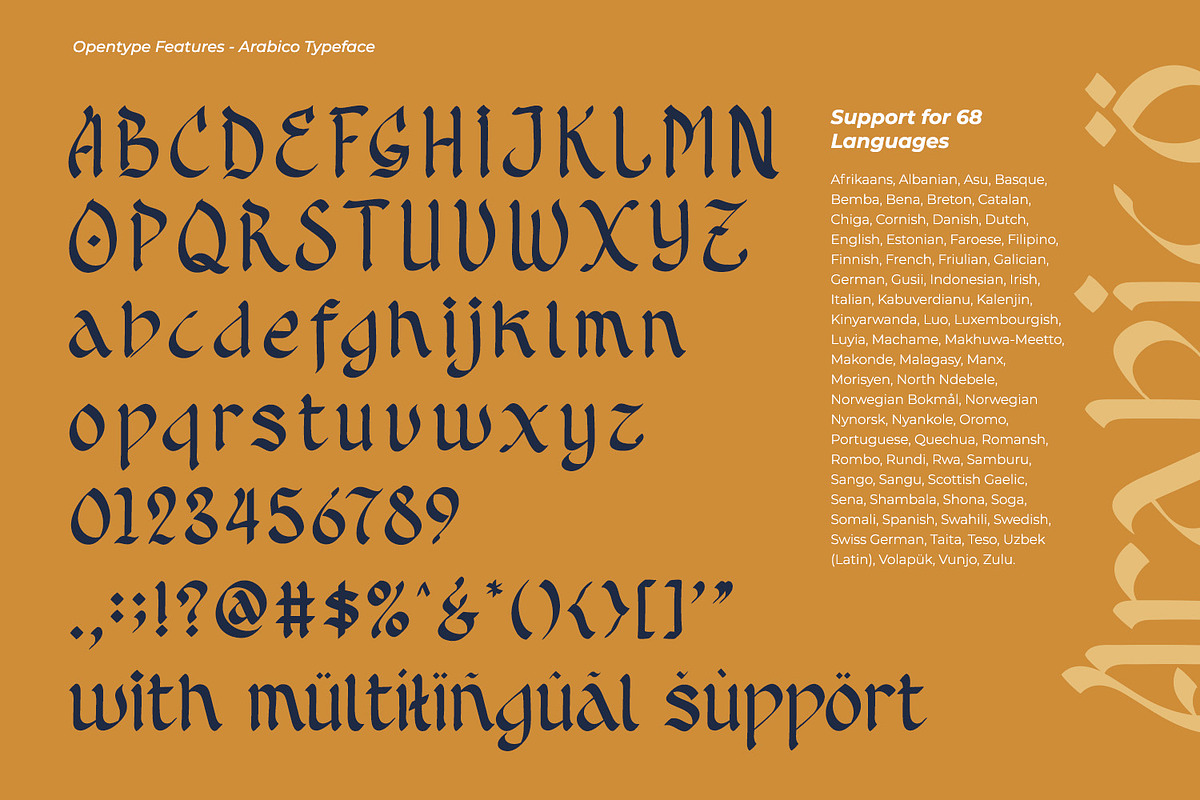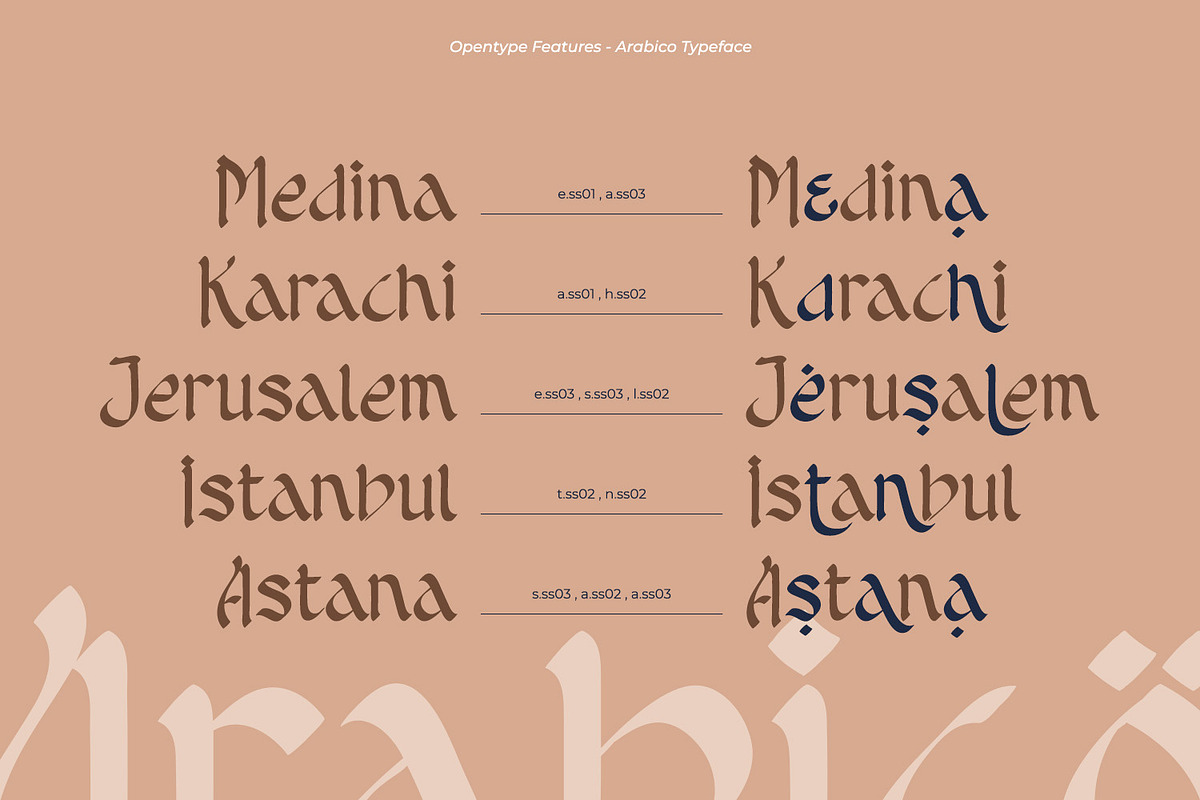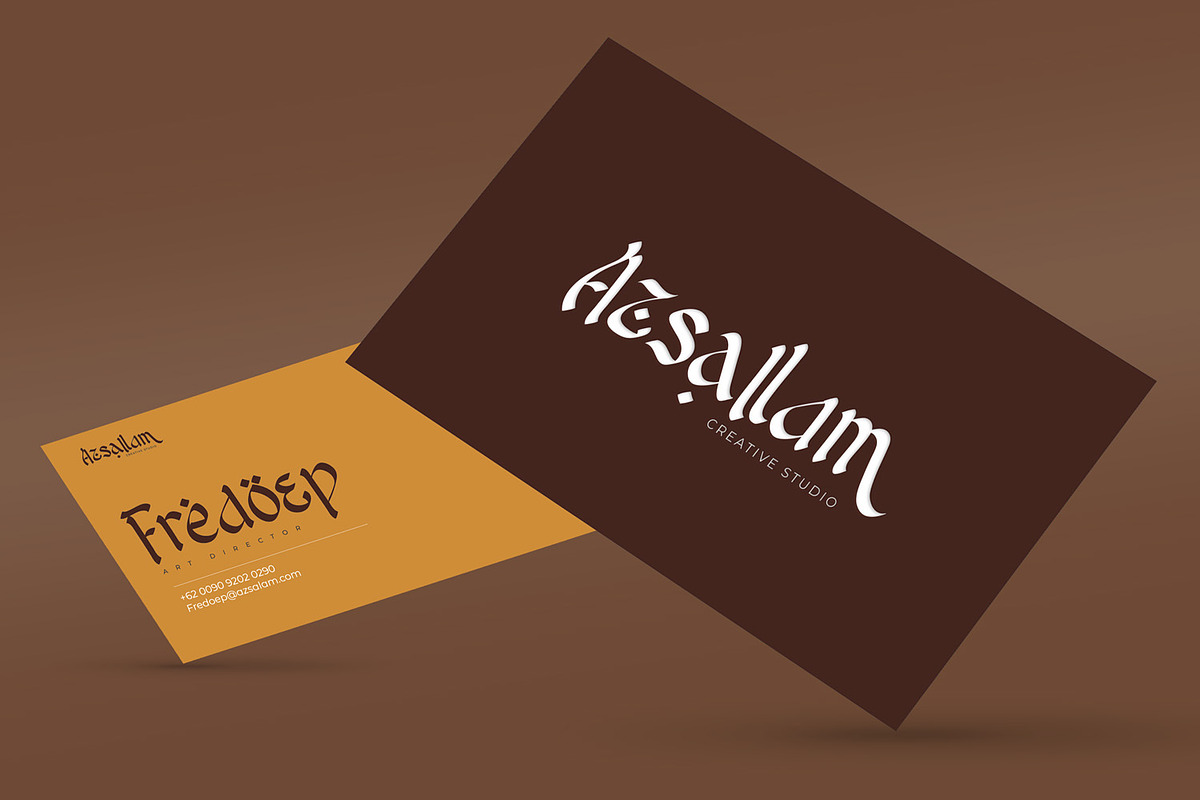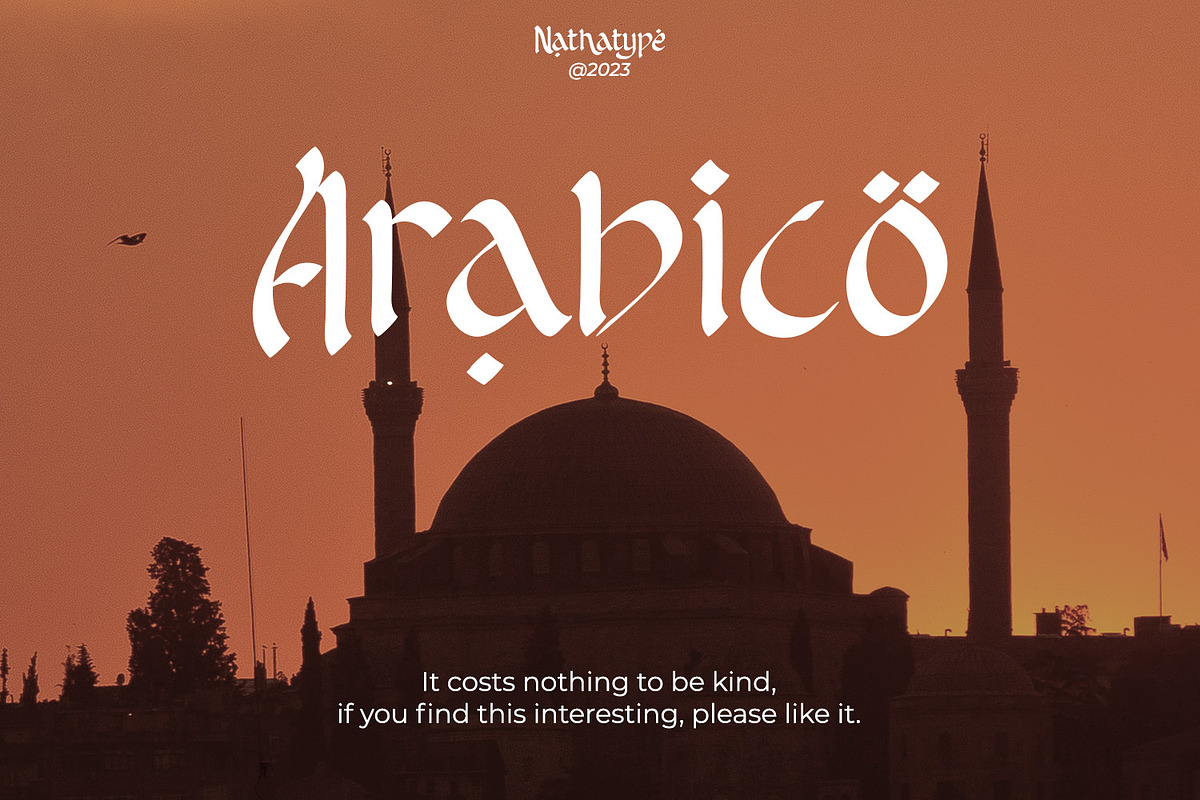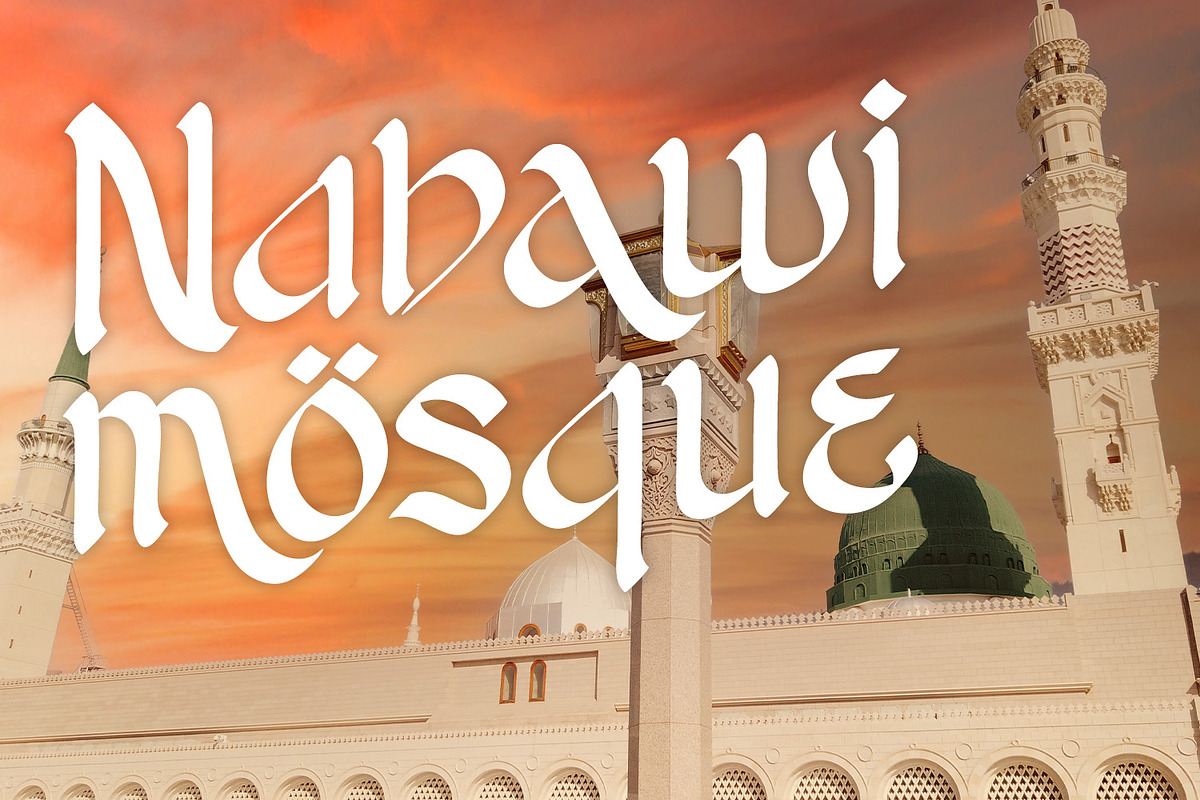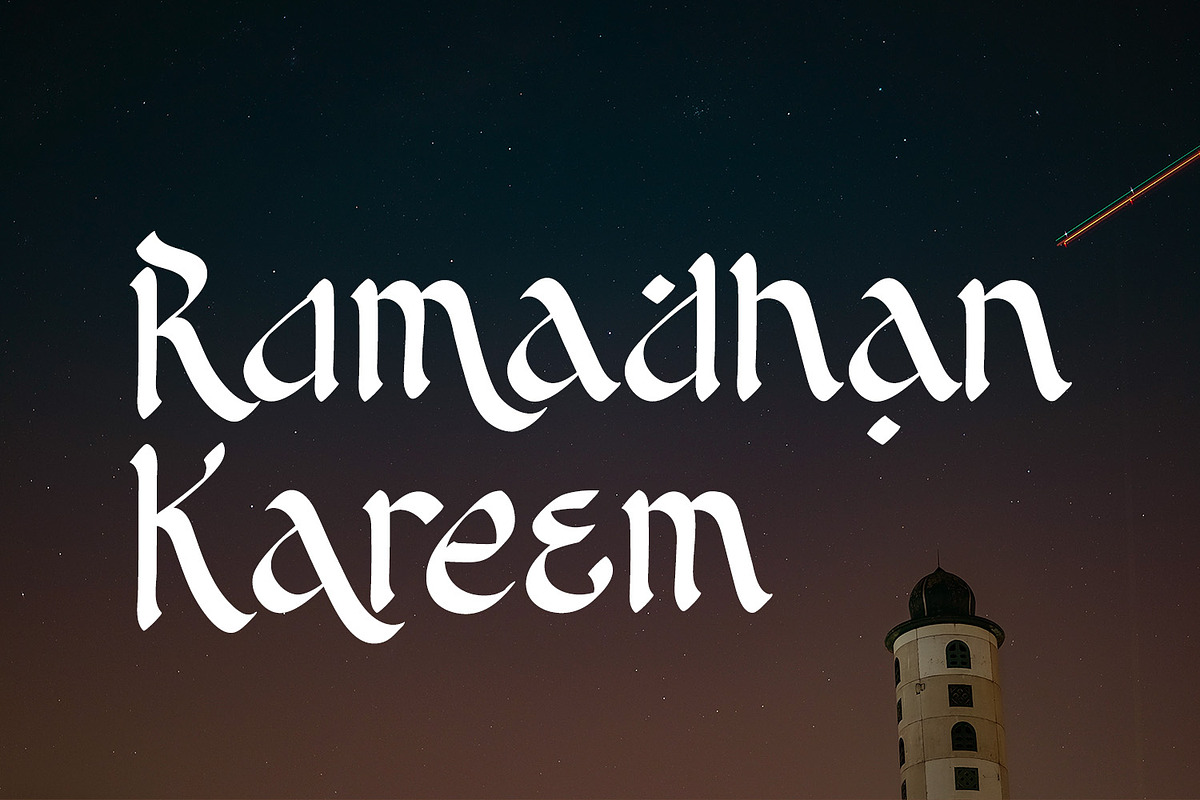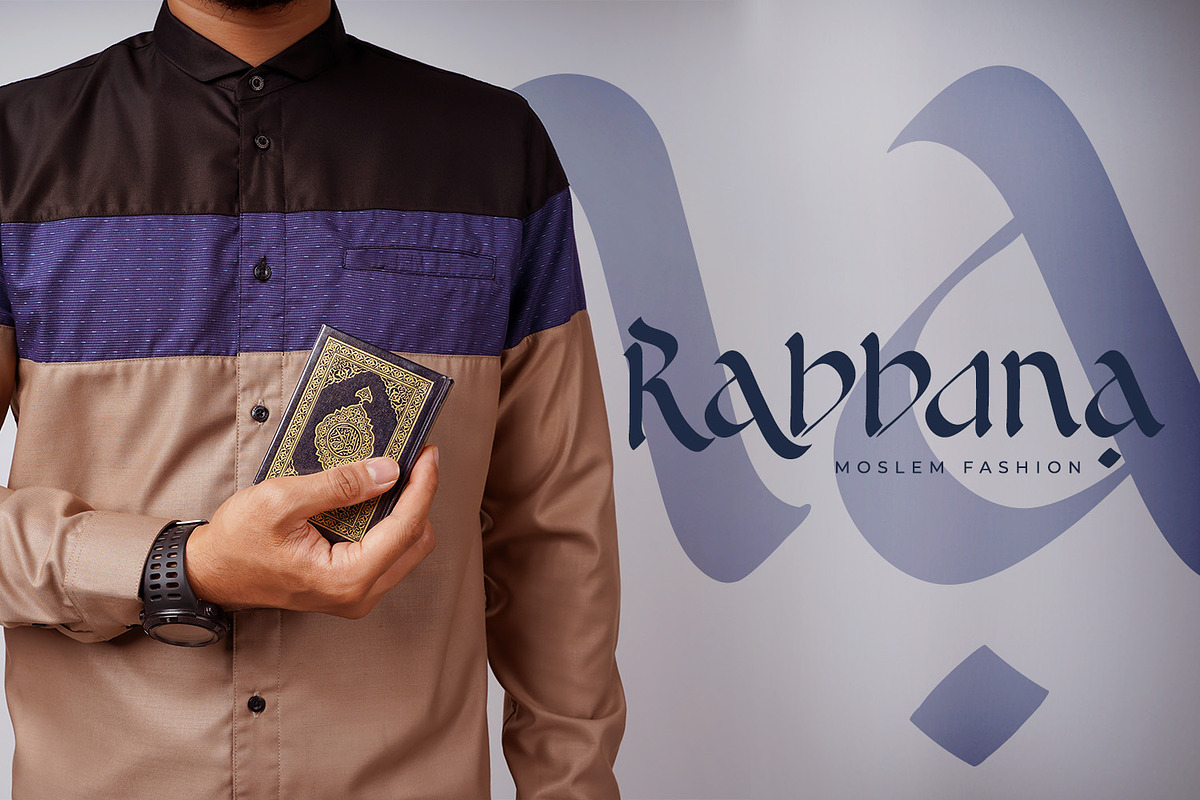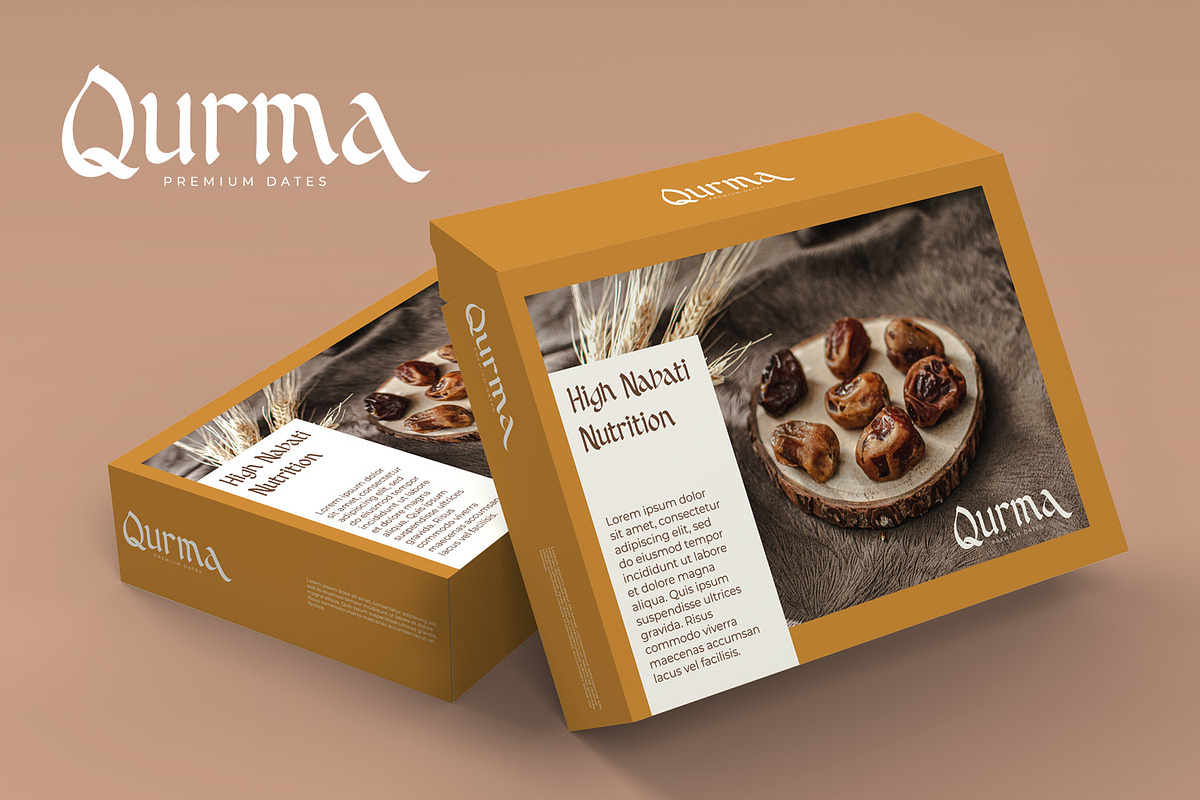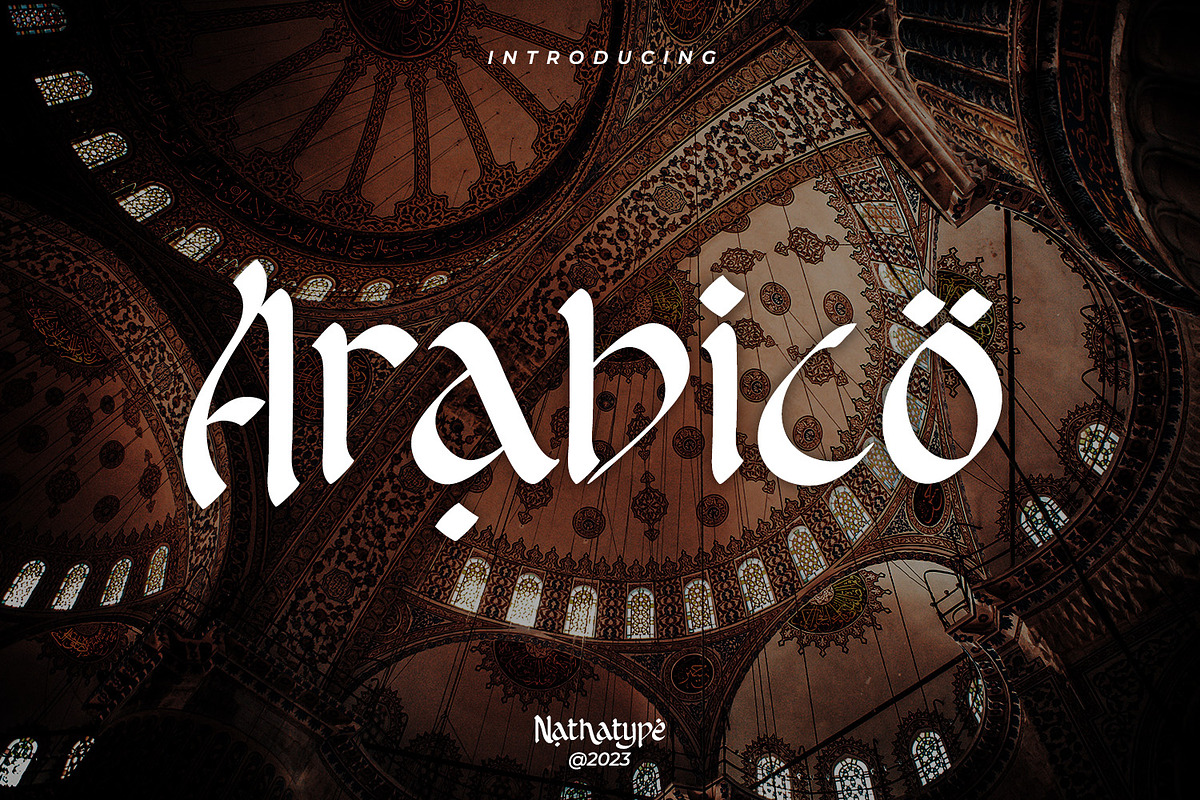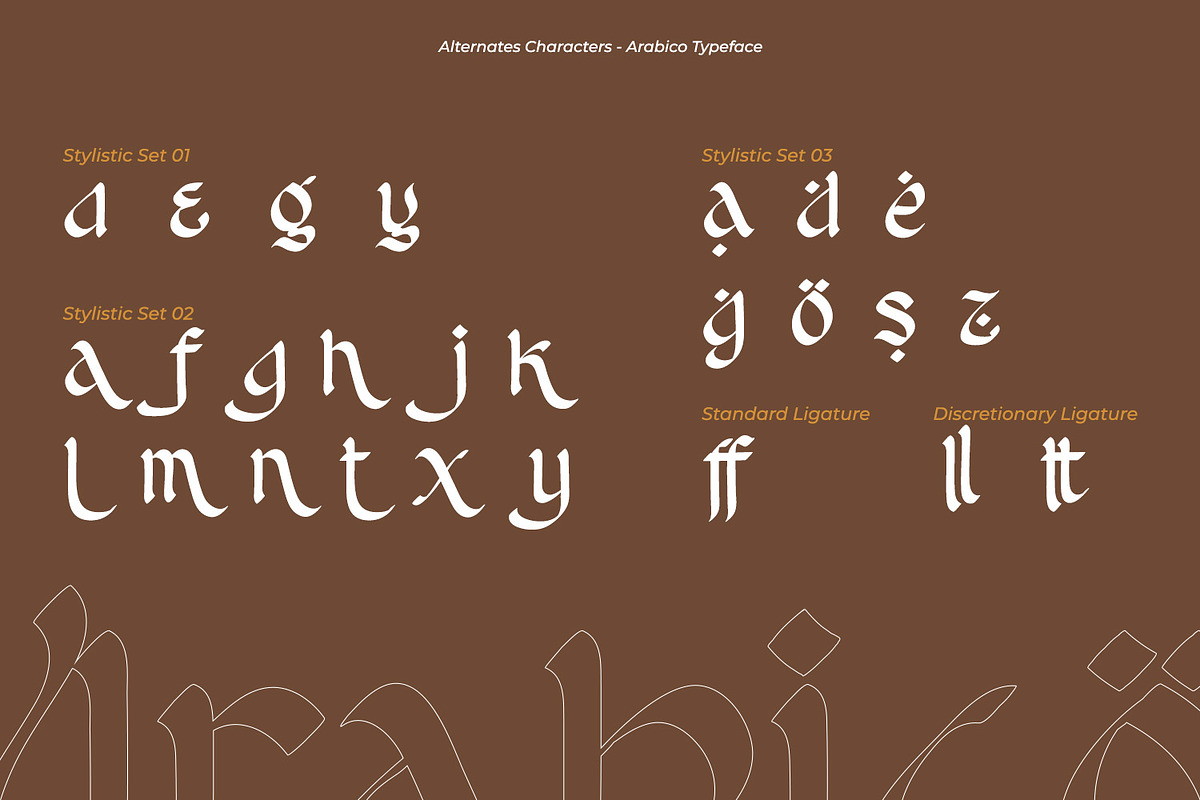
Arabico
Unveiling Arabico, a captivating typeface that bridges cultures and aesthetics with its exquisite design. Arabico is a tribute to the elegance and fluidity of Arabic script. Its letterforms are carefully crafted to echo the aesthetic beauty and expressive nature of Arabic writing. Every stroke and curve of its letters pays homage to the graceful artistry of the flow of Arabic calligraphy. In addition, enjoy the features here.
- Stylistic Sets
Arabico fits in headlines, logos, posters, flyers, branding materials, print media, editorial layouts, and many more designs. Find out more ways to use this font by taking a look at the font preview.